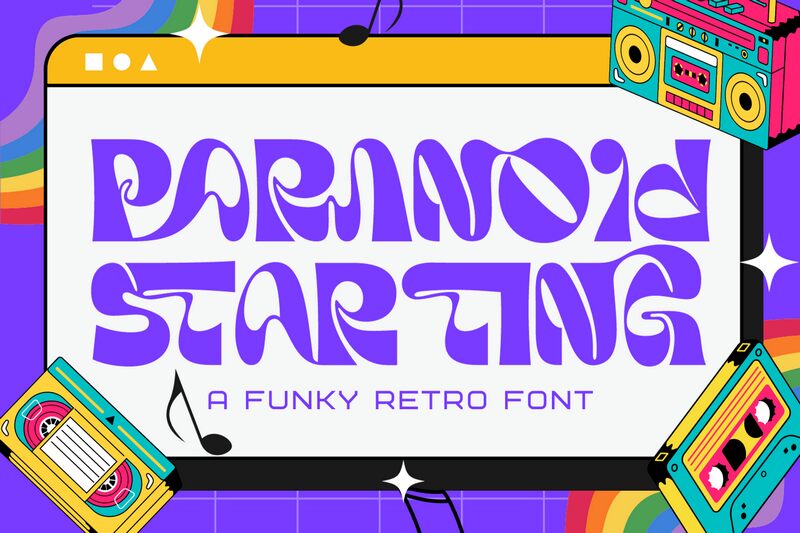
Paranoid Starting Demo Regular
Paranoid Starting font by 177Studio is a bold and abstract font that mixes organic, artistic, decorative, and modernist elements. With its groovy style and decorative letters, it’s perfect for any creative project where an eccentric, extravagant display is required.